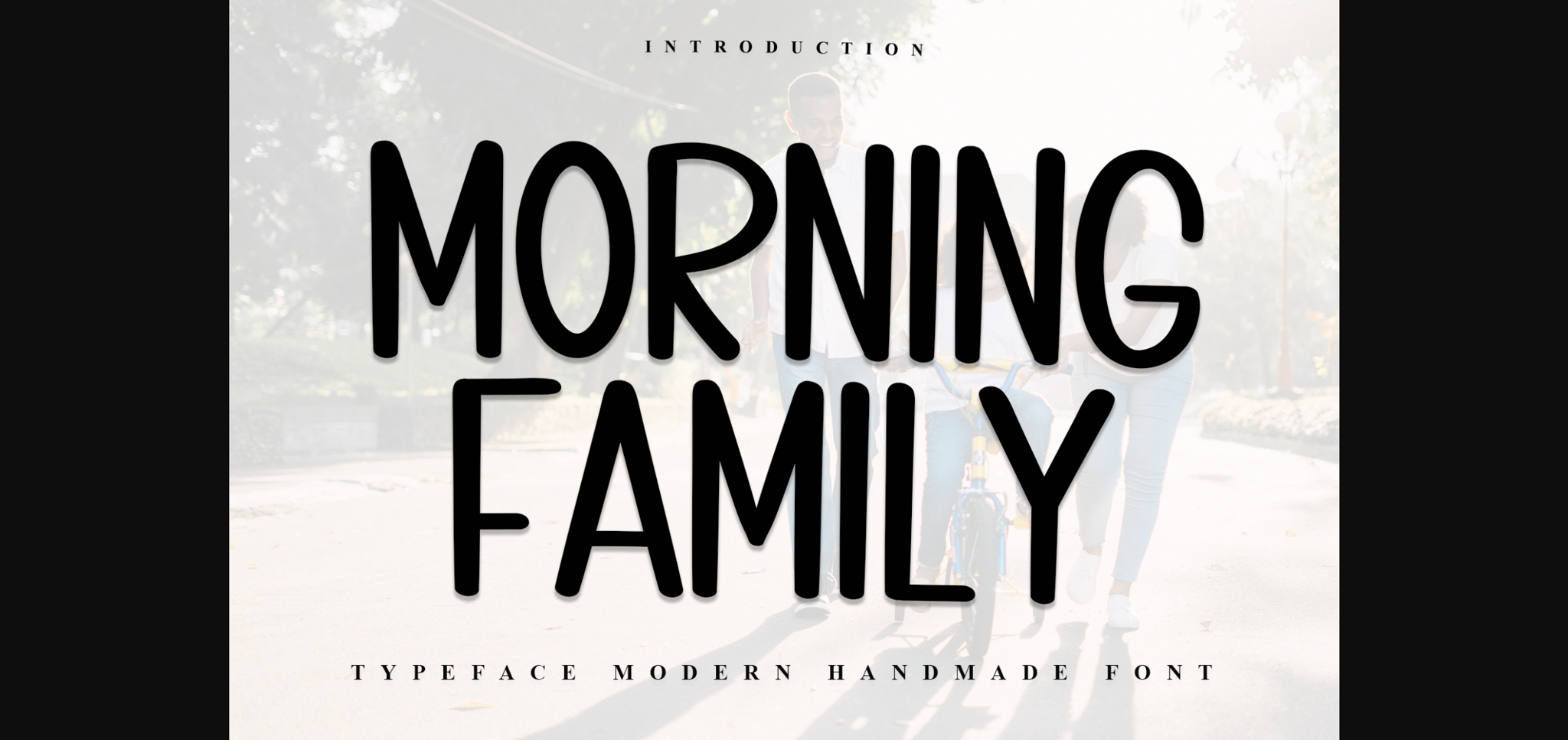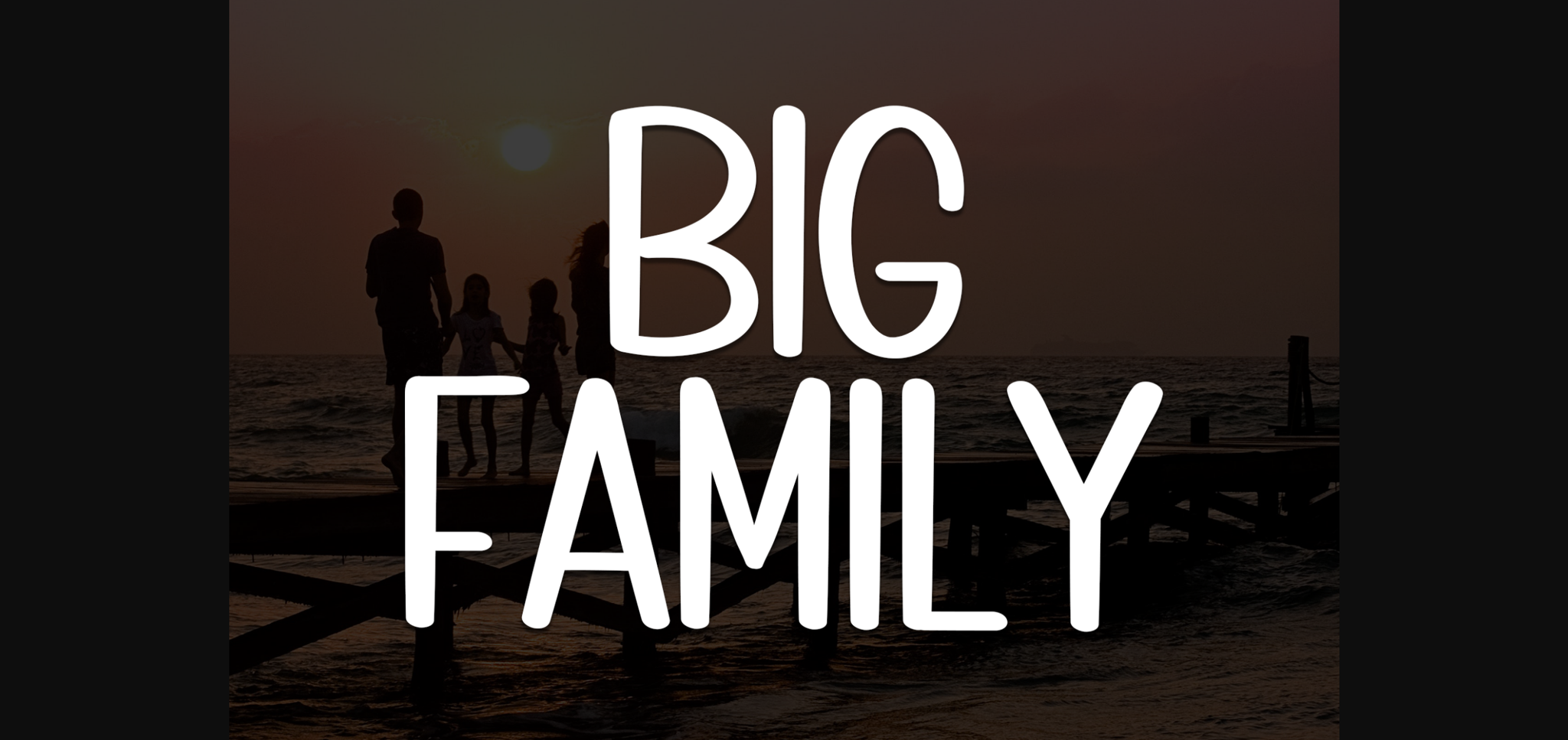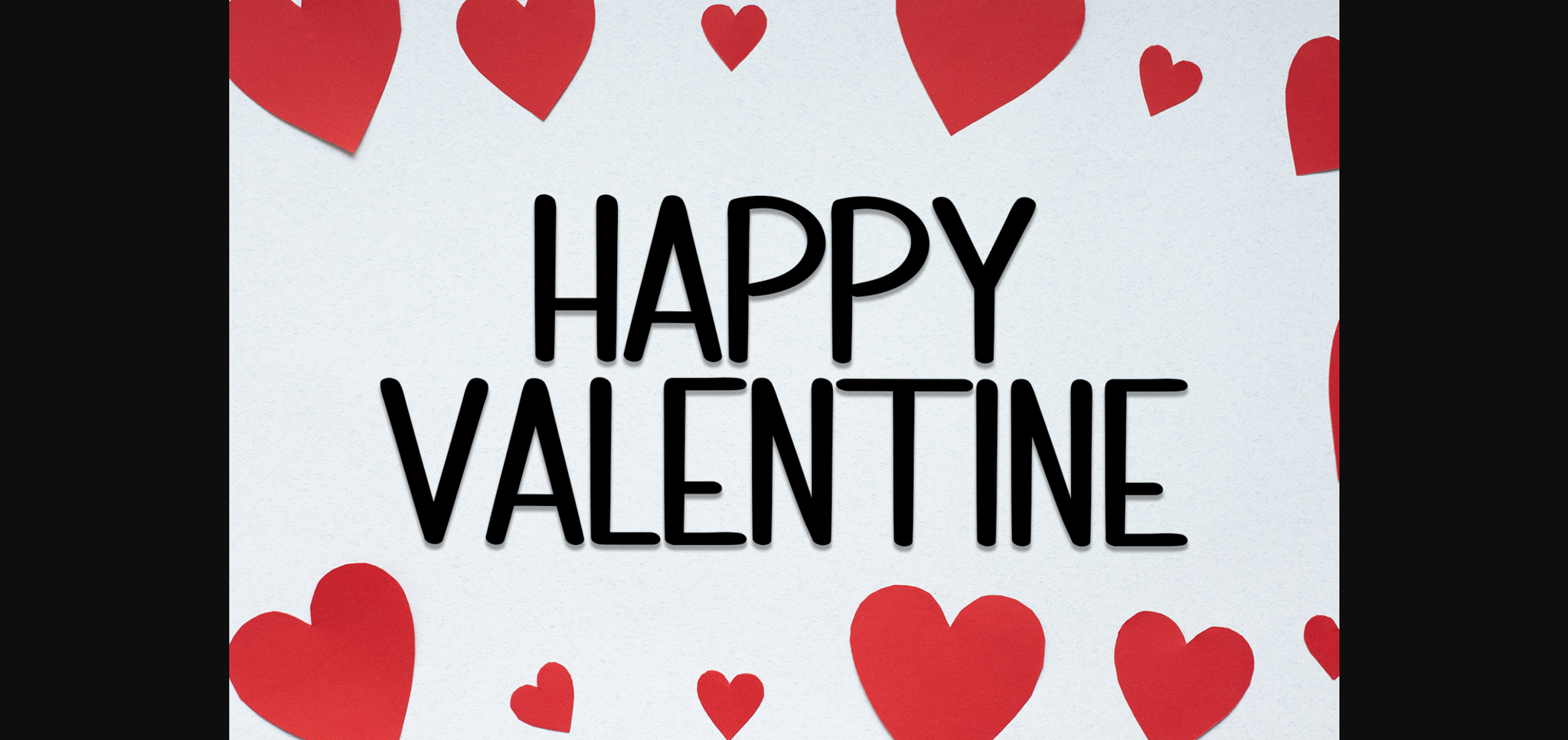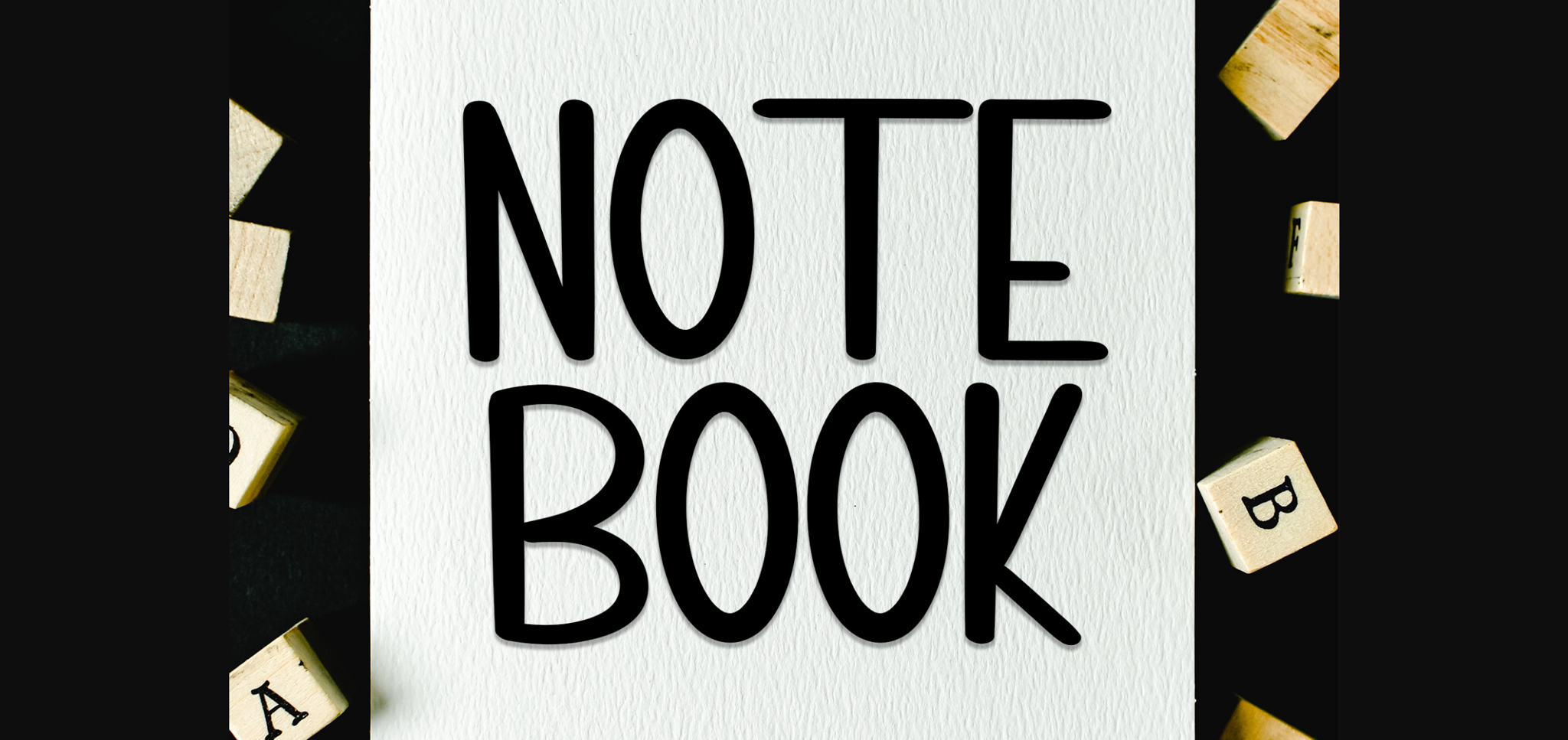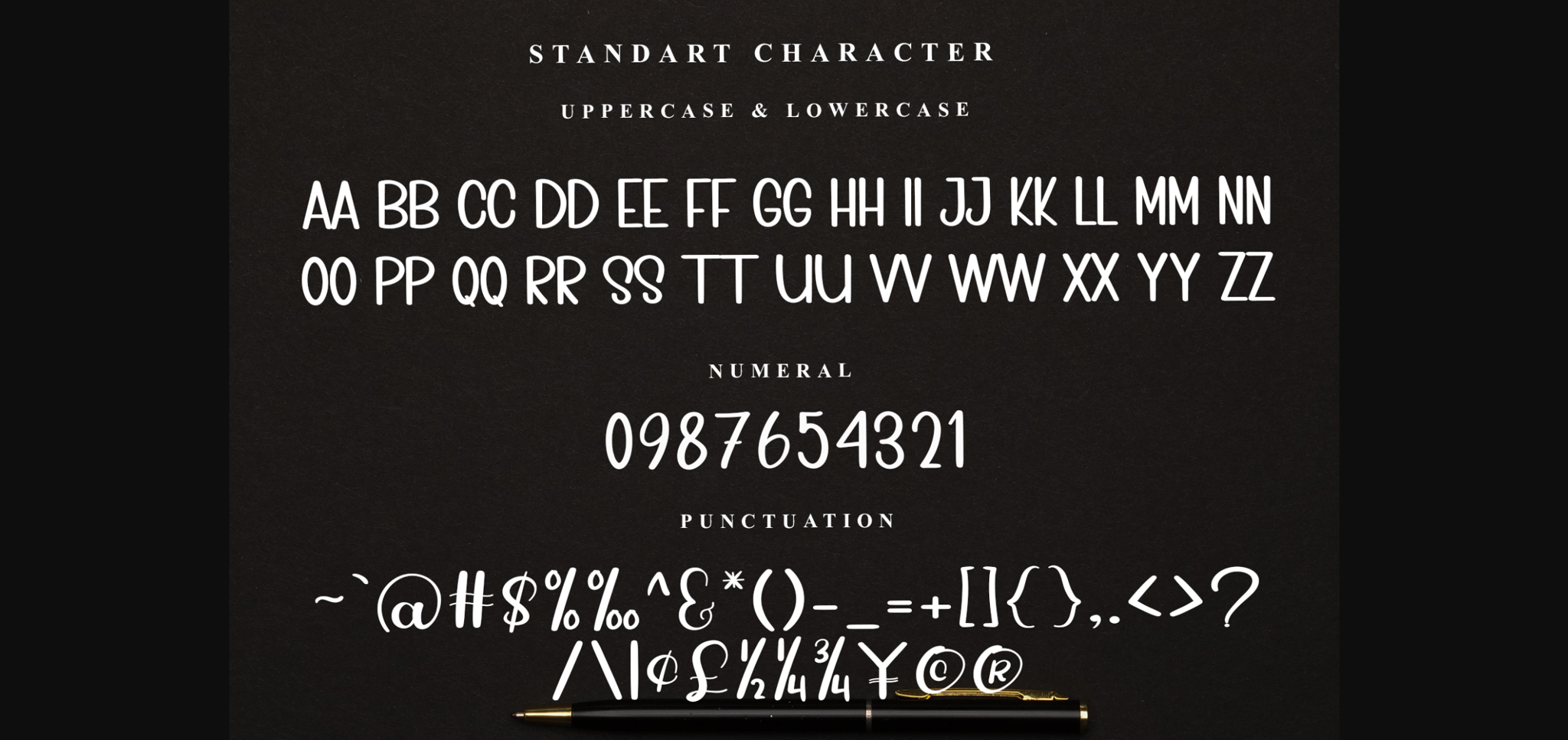
About Morning Family Font
Morning Family is a charming handwritten sans-serif font imbued with a sense of freshness and casual elegance. Its fluid strokes and organic lines evoke a laid-back vibe, making it perfect for various design projects. Whether used for branding, invitations, or social media graphics, Morning Family adds a touch of warmth and personality.